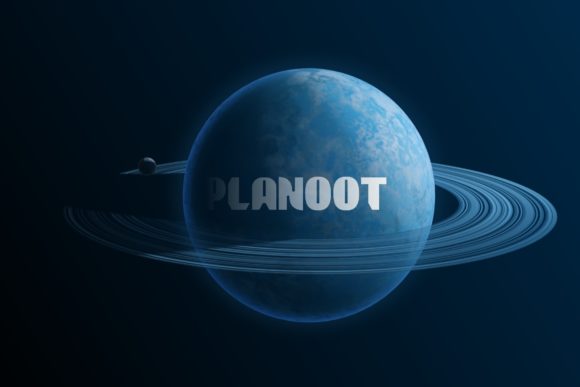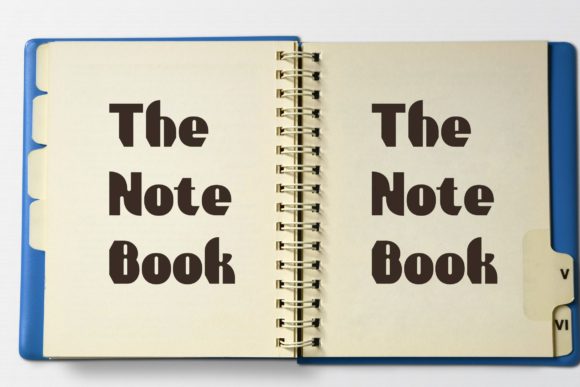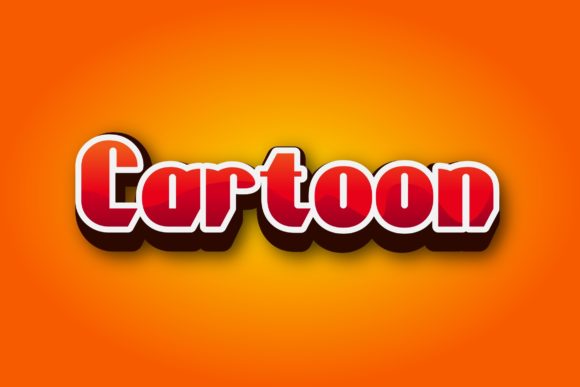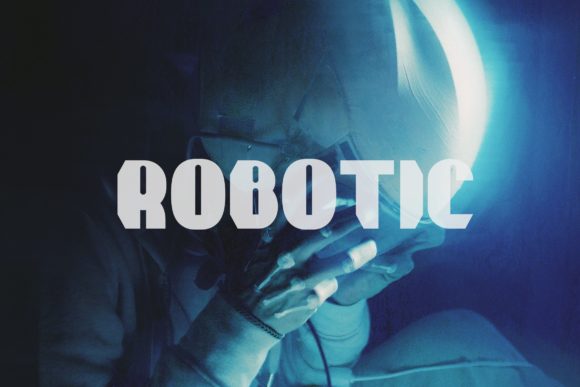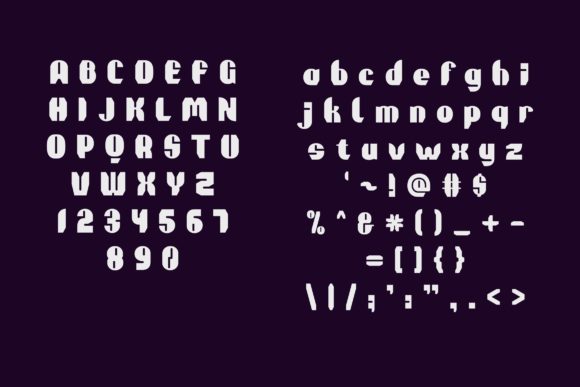
Introduction to Kunto Font
Kunto has a unique shape with a modern style and is very well-crafted.
This font can be used for any type of design whether itโs fun or serious Your options are limitless.